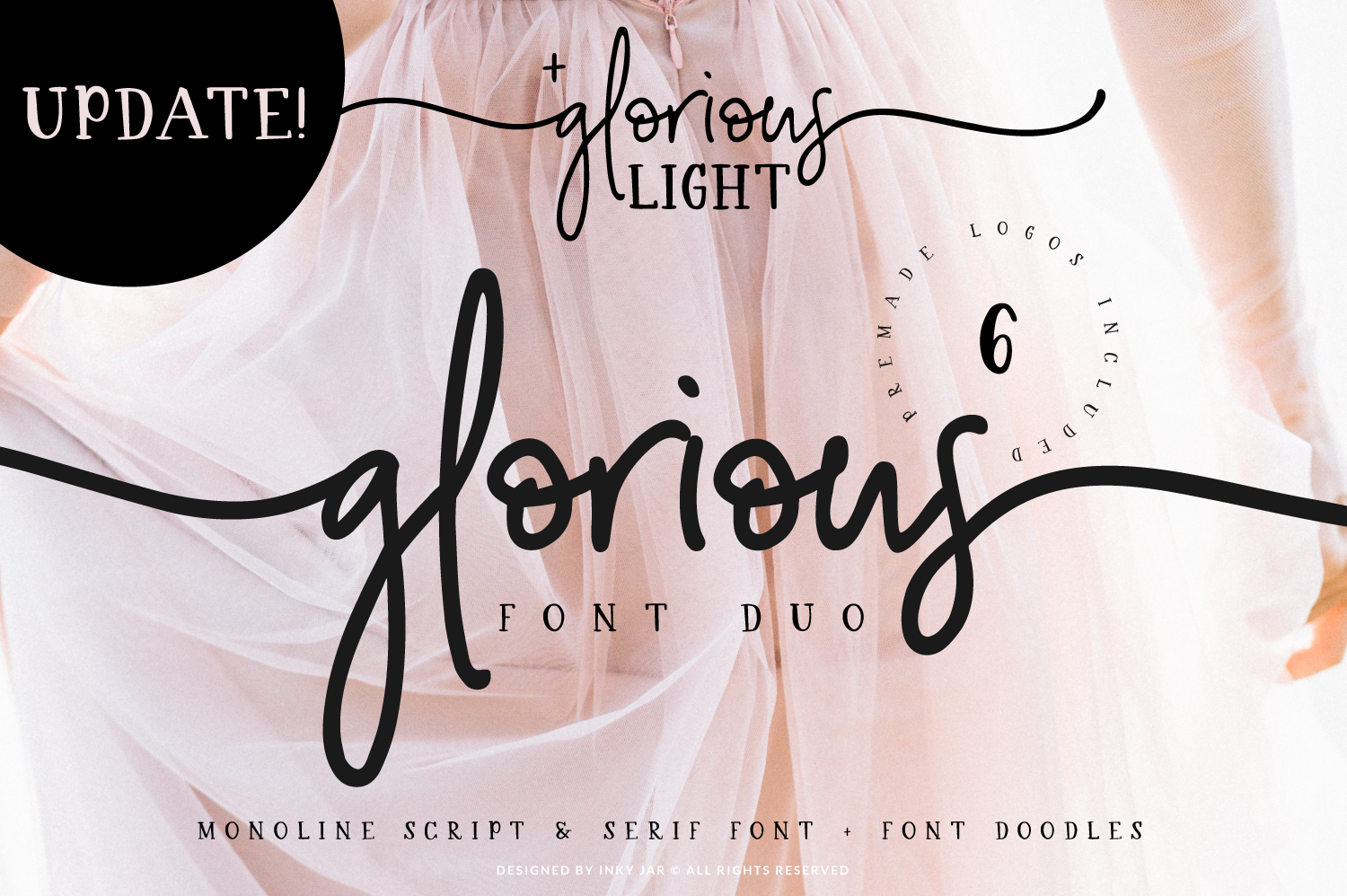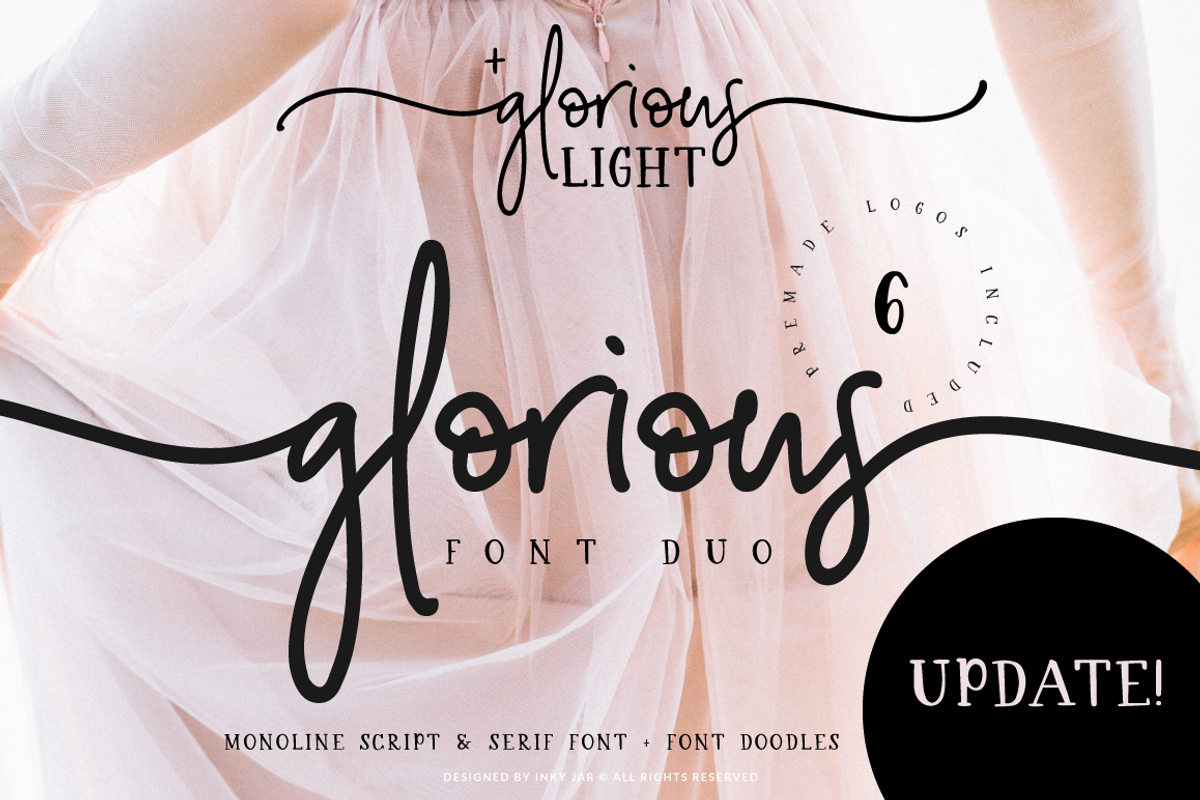
Glorious Font Duo + Extras - UPDATE!
UPDATE! 11.06.2019. - Glorious Light Script version is added so you can make more elegant logos and stationery!
Glorious Font Duo + Extras is a perfect branding combo which includes signature style monoline script font and handwritten serif font. But, that's not all - it also contains doodle font which has a lot of hand drawn shapes perfect for any branding or project. It is PUA encoded.
As this font is perfect for feminine brands, I provided a set of 6 premade logo templates in both Illustrator and Photoshop formats.